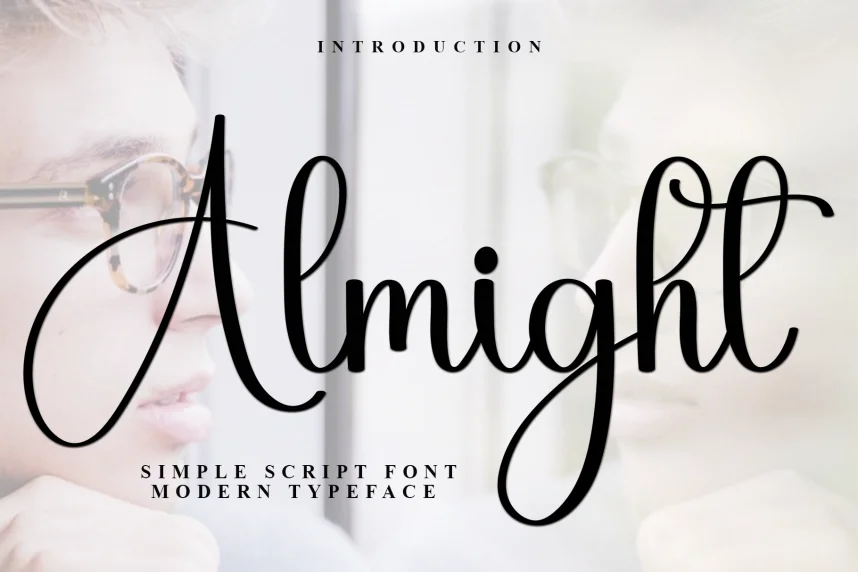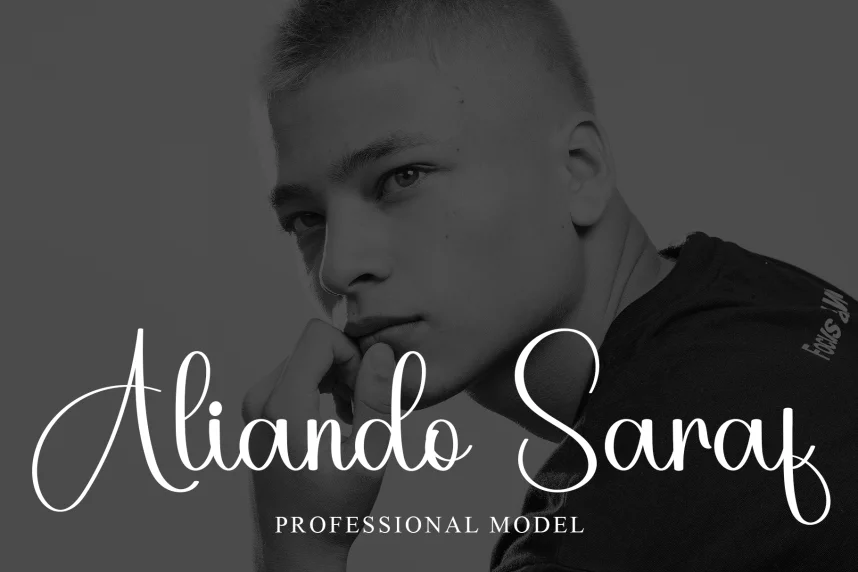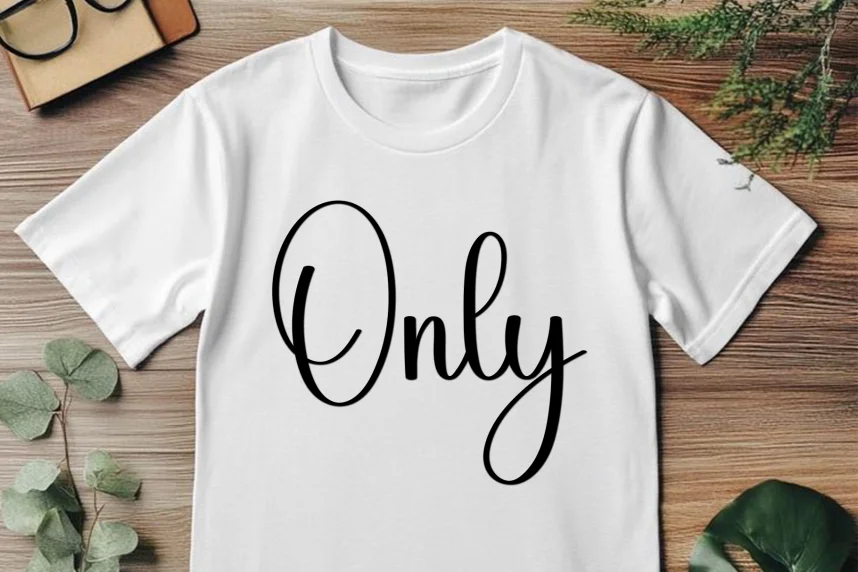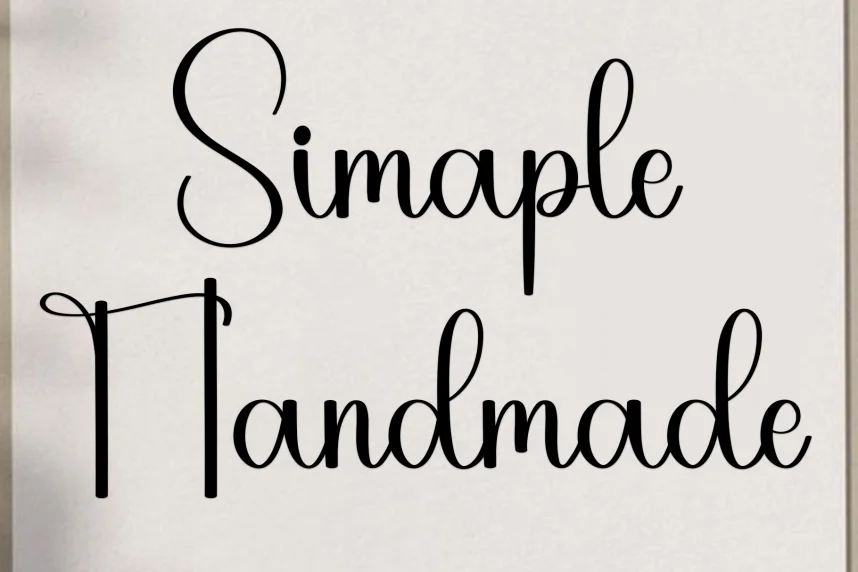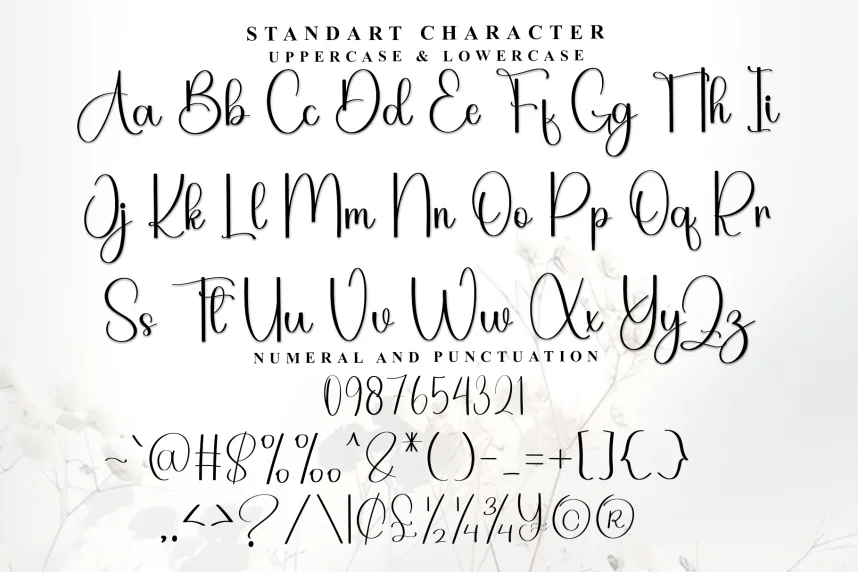
Almight – Modern Script Handwritten Font solves the need for modern handwritten styles that stand out without losing legibility. Designers often use this script for projects requiring a dynamic, flowing look with bold, legible strokes.
Almight is a script font that combines fluid, curvy letterforms with bold strokes and strong contrasts. Its sweeping curves and consistent baseline make it suitable for headlines, logos, and short text applications.